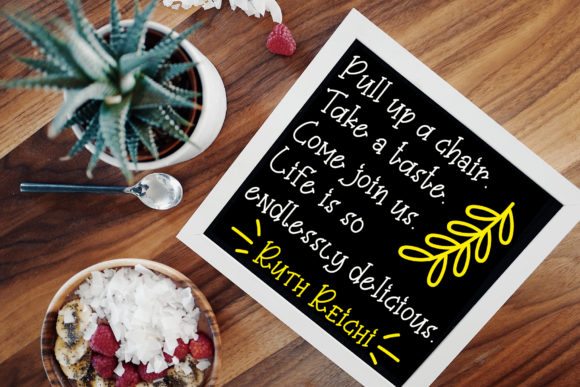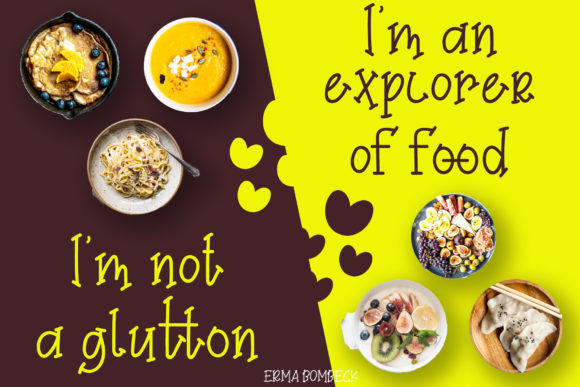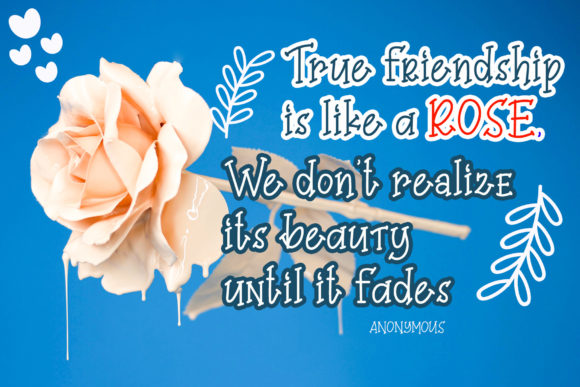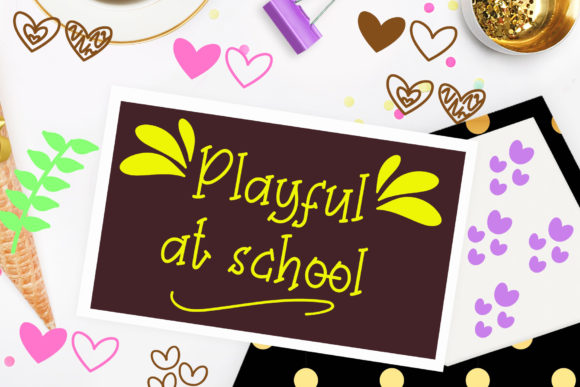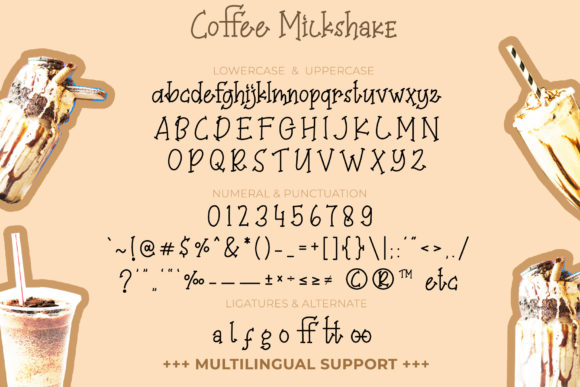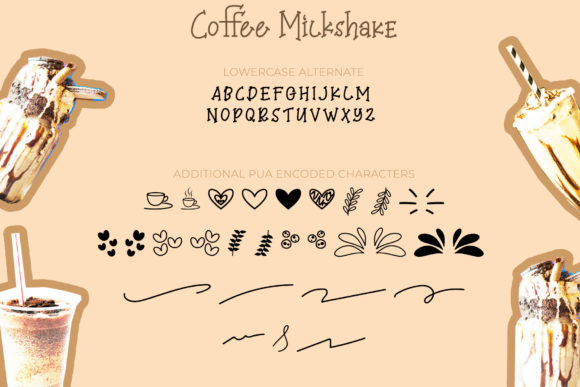
Coffee Milkshake Font: The Sweet and Playful Choice for Your Design Projects
Are you looking for a font that can add a happy and bright vibe to your design projects? Look no further than the Coffee Milkshake font! This sweet and playful font is perfect for a variety of projects, from crafting and baking to coffee and dessert-themed designs.
What is Coffee Milkshake Font?
Coffee Milkshake font is a fun and whimsical font that is designed to evoke the feeling of a cold and creamy milkshake on a hot summer day. The font features rounded and smooth curves, with a playful and carefree vibe that is sure to bring a smile to your face.
Characteristics of Coffee Milkshake Font
Coffee Milkshake font has several characteristics that make it a great choice for your design projects. Some of its key features include:
- Playful and whimsical: The font has a fun and carefree vibe that is perfect for projects that require a lighthearted and playful touch.
- Sweet and creamy: The font’s rounded curves and smooth lines give it a sweet and creamy feel that is reminiscent of a cold milkshake.
- Happy and bright: The font’s bold and cheerful design makes it perfect for projects that require a happy and bright vibe.
- Versatile: The font is suitable for a wide range of projects, from crafting and baking to coffee and dessert-themed designs.
Uses for Coffee Milkshake Font
Coffee Milkshake font is a versatile font that can be used for a wide range of projects. Some ideas for using this font include:
- Crafting and baking: Use the font to create fun and playful labels, signs, and cards for your crafting and baking projects.
- Coffee and dessert-themed designs: The font is perfect for creating menus, flyers, and other designs for coffee shops, bakeries, and dessert-themed businesses.
- Party invitations: Use the font to create fun and playful invitations for birthday parties, baby showers, and other celebrations.
- Social media graphics: The font is great for creating social media graphics, such as Instagram posts and Facebook covers, that require a fun and playful touch.
Why Choose Coffee Milkshake Font?
There are many reasons why you might choose Coffee Milkshake font for your design projects. Some of the benefits of using this font include:
- Unique and eye-catching: The font’s playful and whimsical design makes it a great choice for projects that require a unique and eye-catching font.
- Easy to read: The font is clear and easy to read, making it perfect for projects that require a font that is both fun and functional.
- Customizable: The font can be customized to fit your specific design needs, making it a great choice for projects that require a high level of flexibility.
Tips for Using Coffee Milkshake Font
Here are a few tips for using Coffee Milkshake font in your design projects:
- Use it sparingly: While the font is fun and playful, it can be overwhelming if used too much. Use it sparingly to add a touch of whimsy to your designs.
- Pair it with other fonts: The font pairs well with other fonts, such as sans-serif fonts and script fonts. Experiment with different font combinations to find the perfect look for your project.
- Experiment with colors: The font looks great in a variety of colors, from bright and bold to soft and pastel. Experiment with different colors to find the perfect look for your project.
Coffee Milkshake font is a sweet and playful font that is perfect for adding a happy and bright vibe to your design projects. With its unique and eye-catching design, ease of use, and customizability, it’s a great choice for a wide range of projects. Whether you’re a designer, crafter, or simply someone who loves fun and playful fonts, Coffee Milkshake font is a great addition to your font collection.